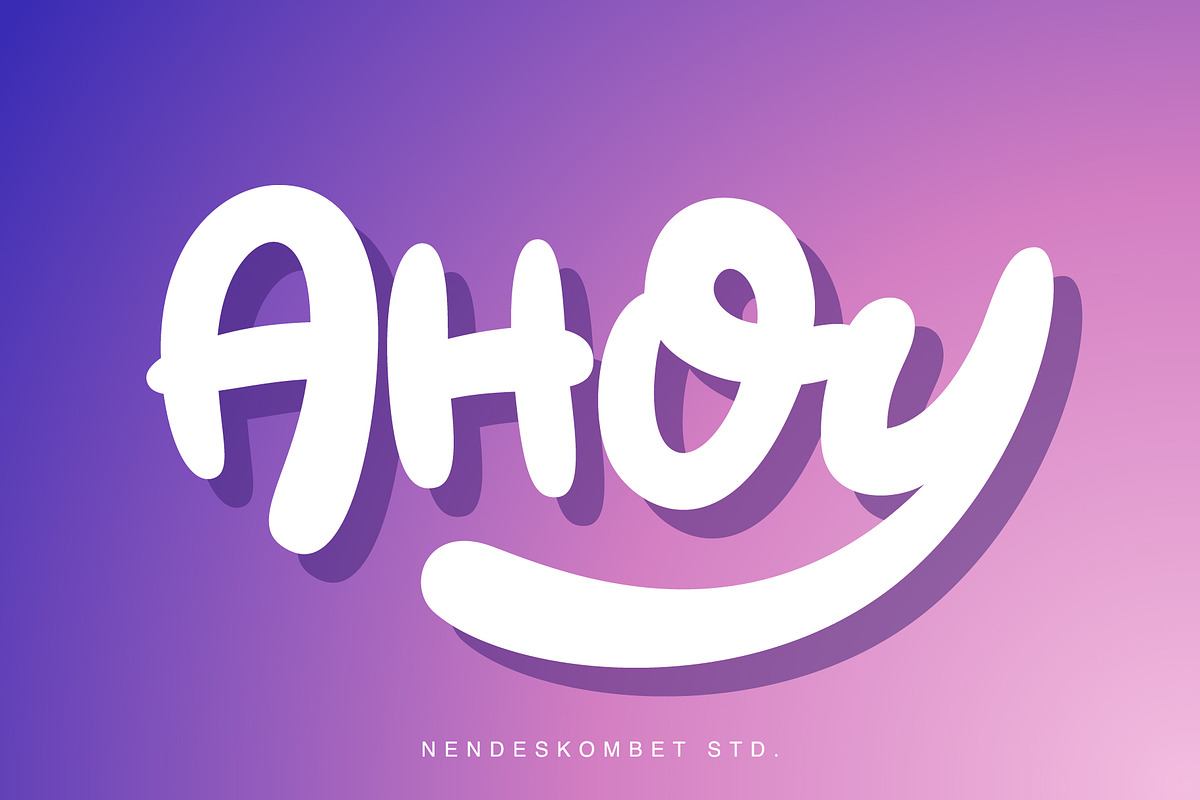
You must purchase this font for commercial use. However, you can download Ahoy Font Free Download for testing purposes. Ahoy is a fun, nautical-inspired display font that brings a bold, adventurous spirit to your design projects. Perfect for children’s books, beach-themed branding, party invitations, signage, merchandise, and playful social media graphics, Ahoy captures the joy and whimsy of seaside vibes and maritime style.
With its chunky letterforms, hand-drawn feel, and quirky character shapes, Ahoy is ideal for projects that need a lighthearted, bold, and approachable tone. Whether you're creating a pirate-themed poster or a summer event flyer, Ahoy Font Free Download adds personality and charm with every letter.